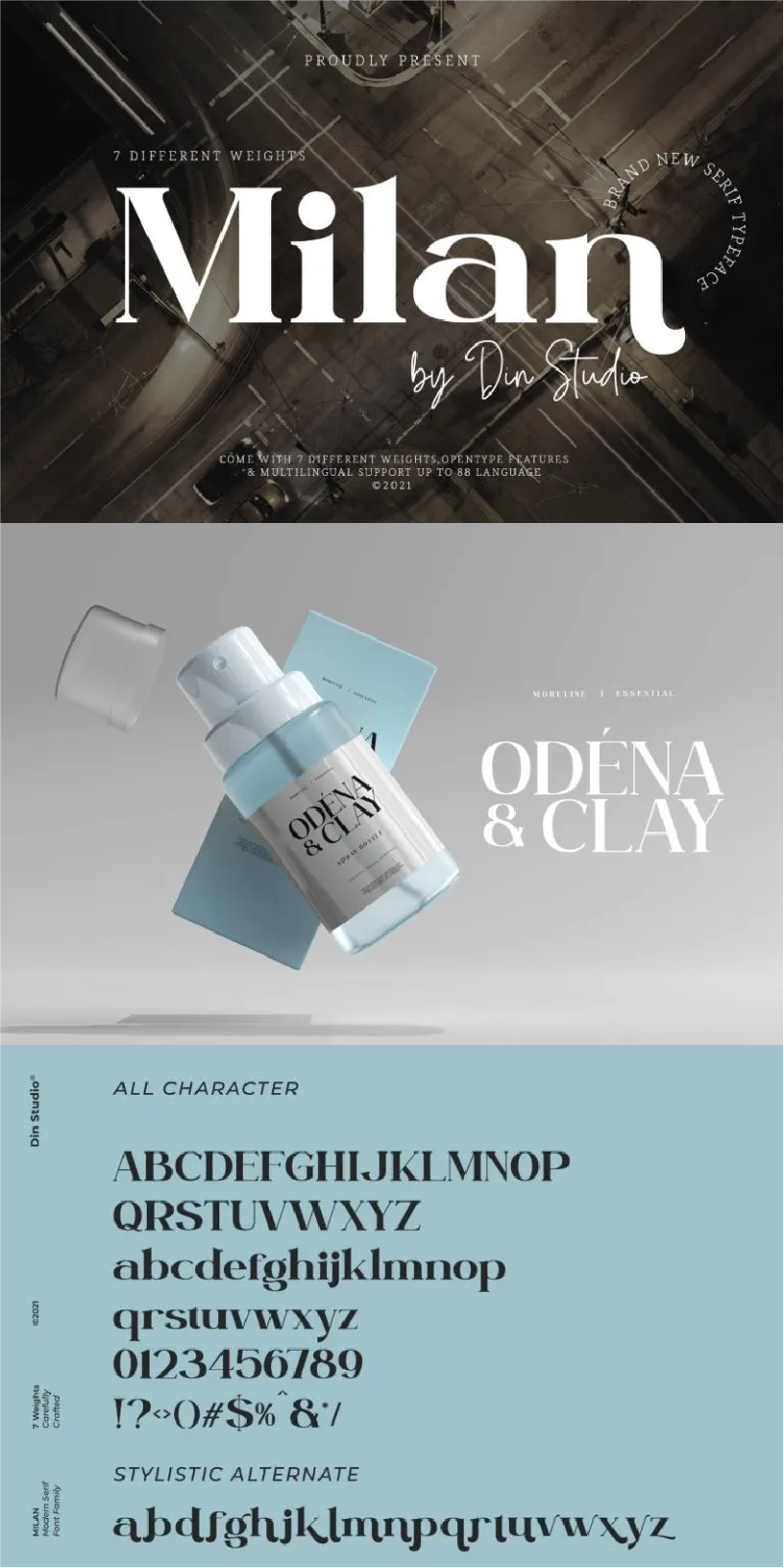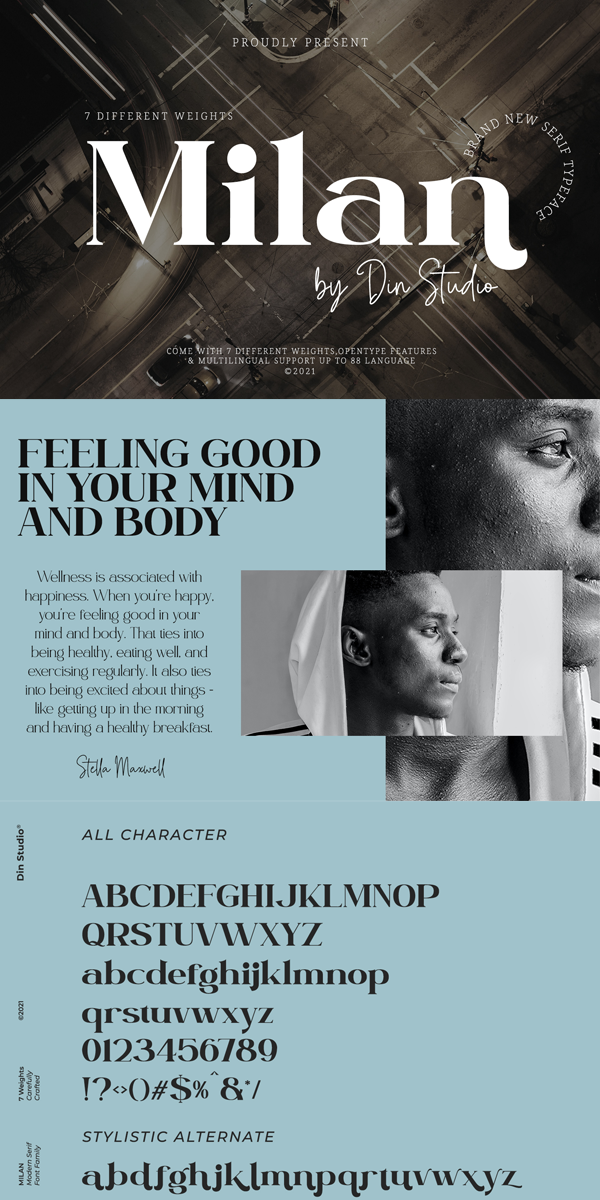
Milan Font
About Milan
Milan – A Serif Font Family
Milan is a package that will makes you super happy. We offer you a very best choice to coloring your branding or project. With this family you will get many options of weight to maximize your designs with stylish fonts. This serif font family made in uppercase and lowercase that easy on the eyes and nice to look while it’s also easy to read. The font is an excellent choice to ensure a great font match for your designs and projects! It also perfect to create amazing headings, logos, menus, social media graphics, and many more.
-Milan Thin
-Milan Extra Light
-Milan Light
-Milan Regular
-Milan Medium
-Milan Semi Bold
-Milan Bold